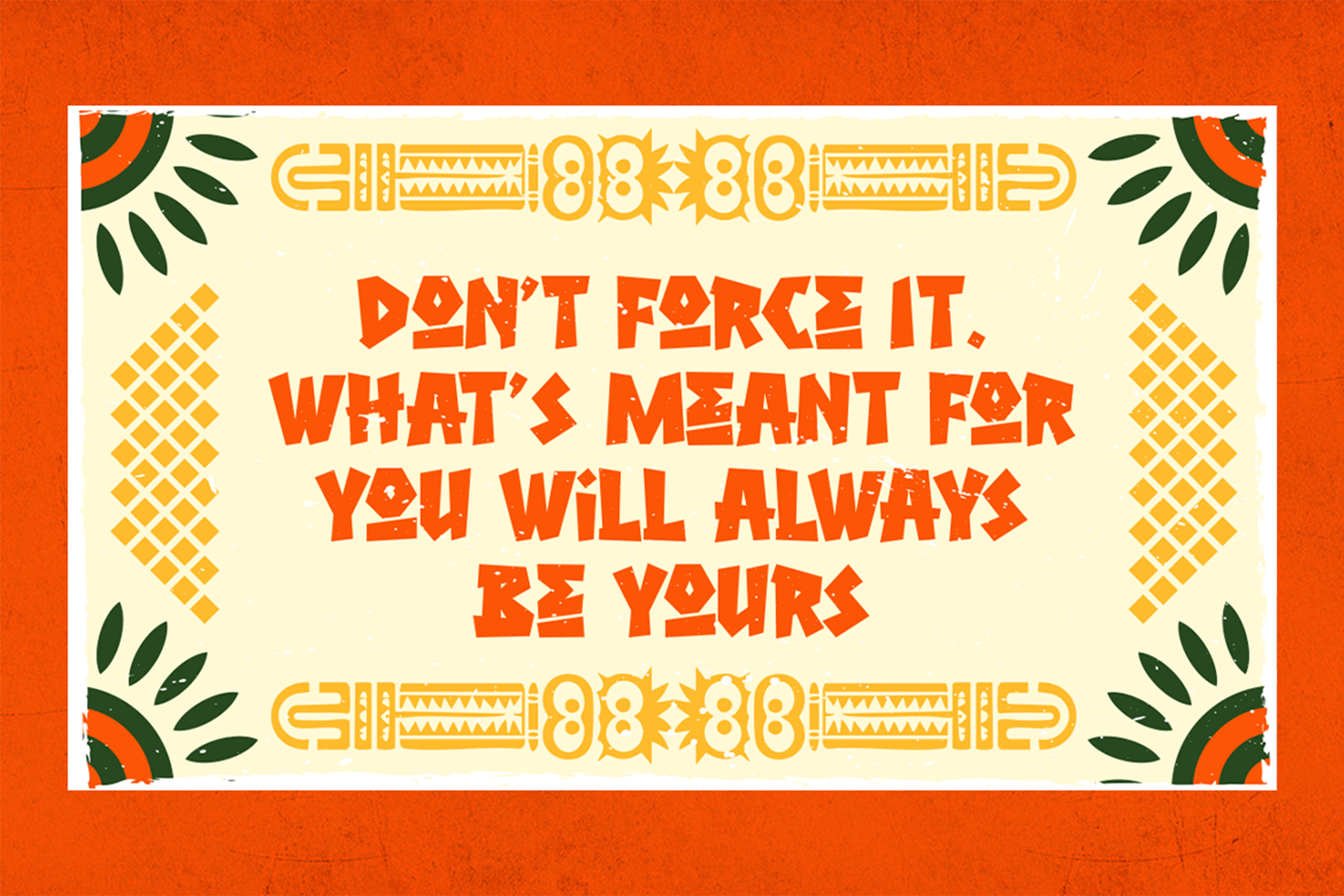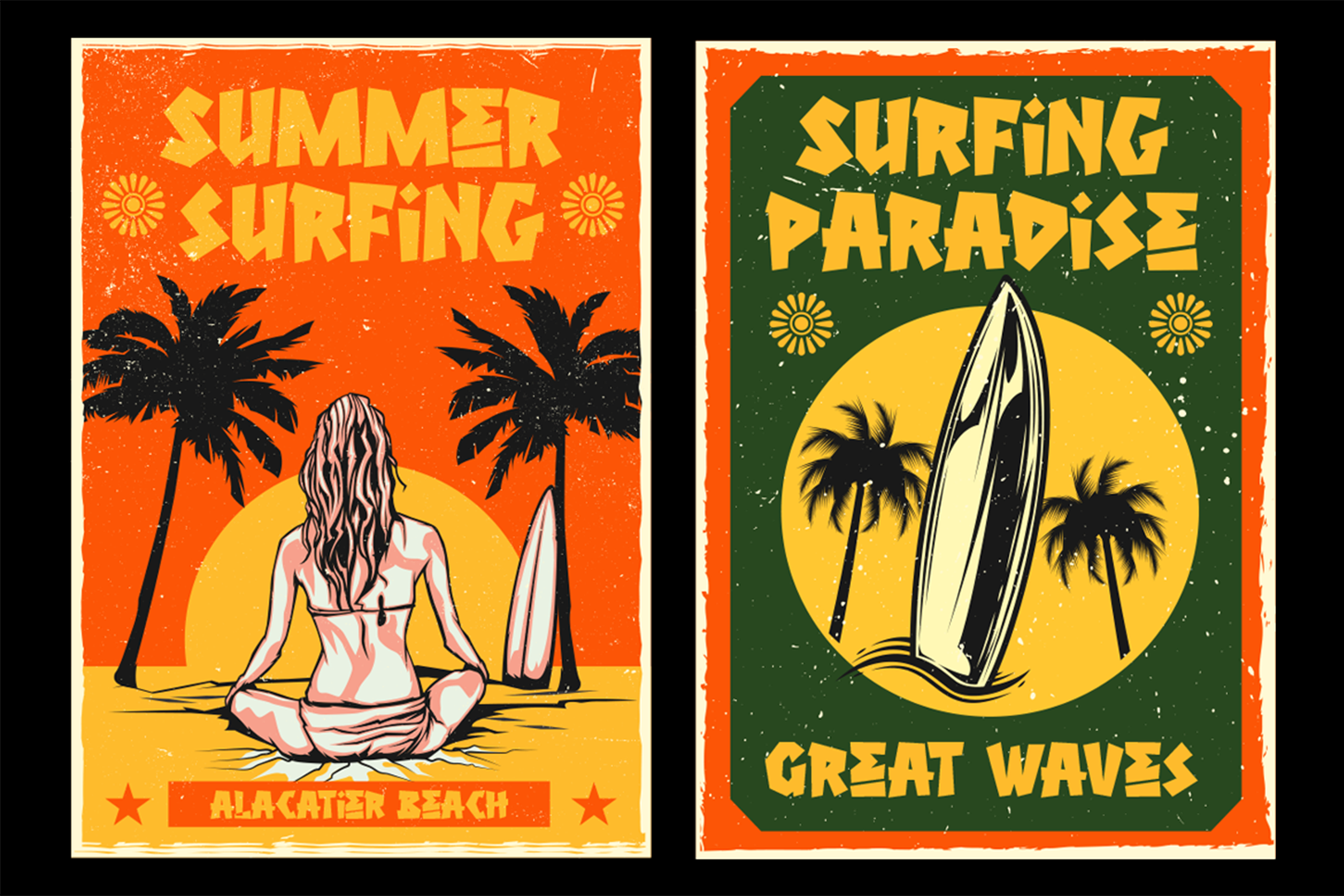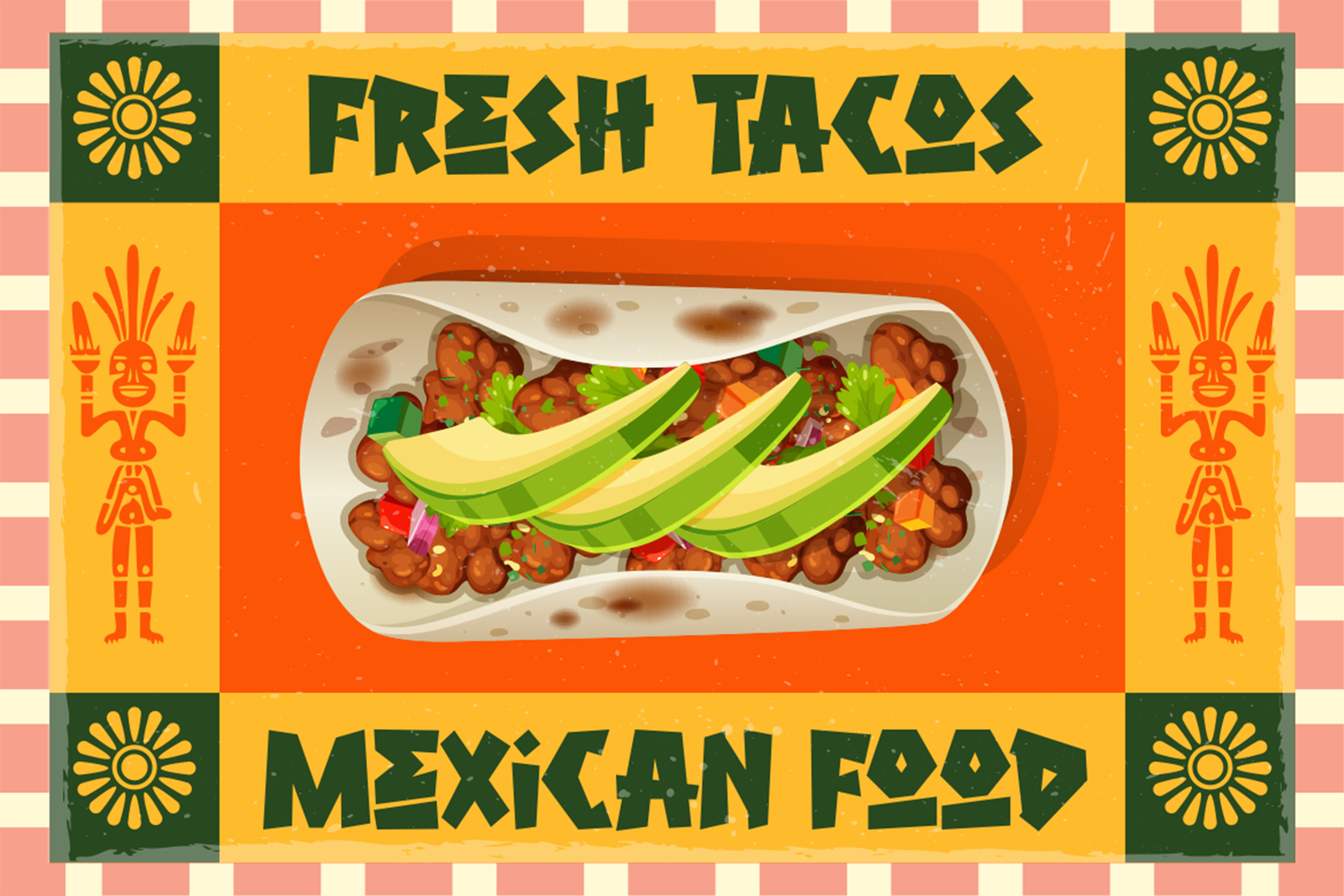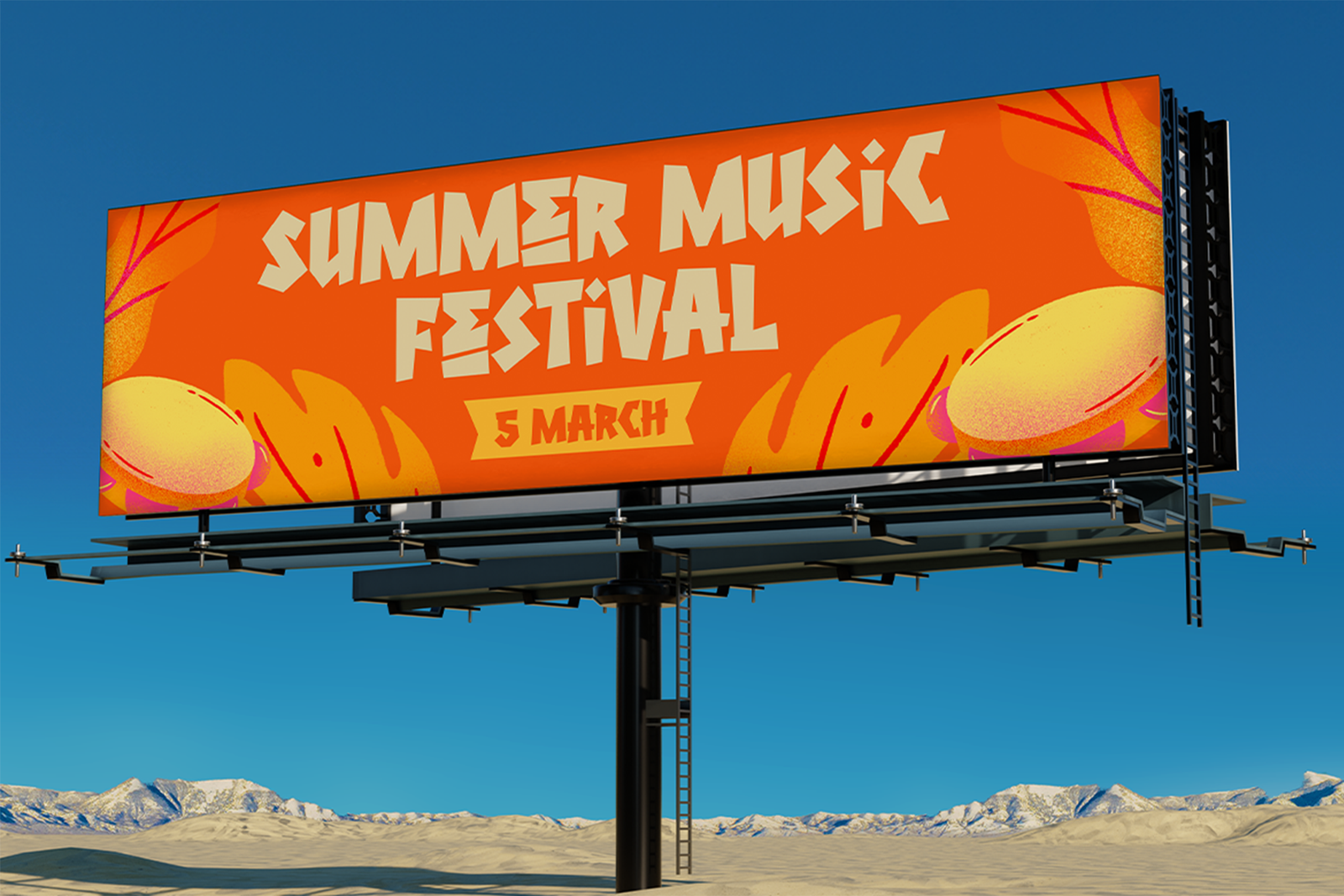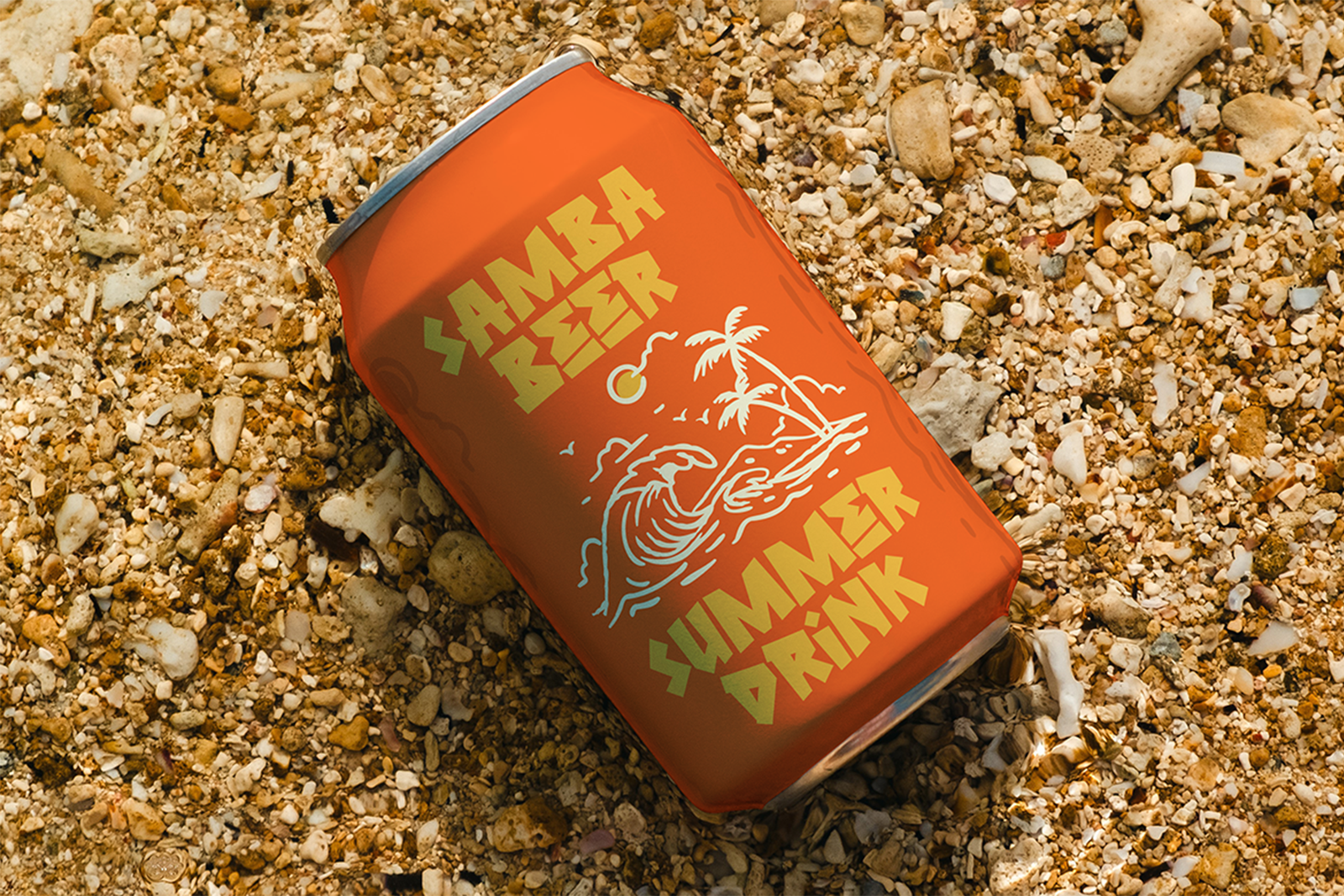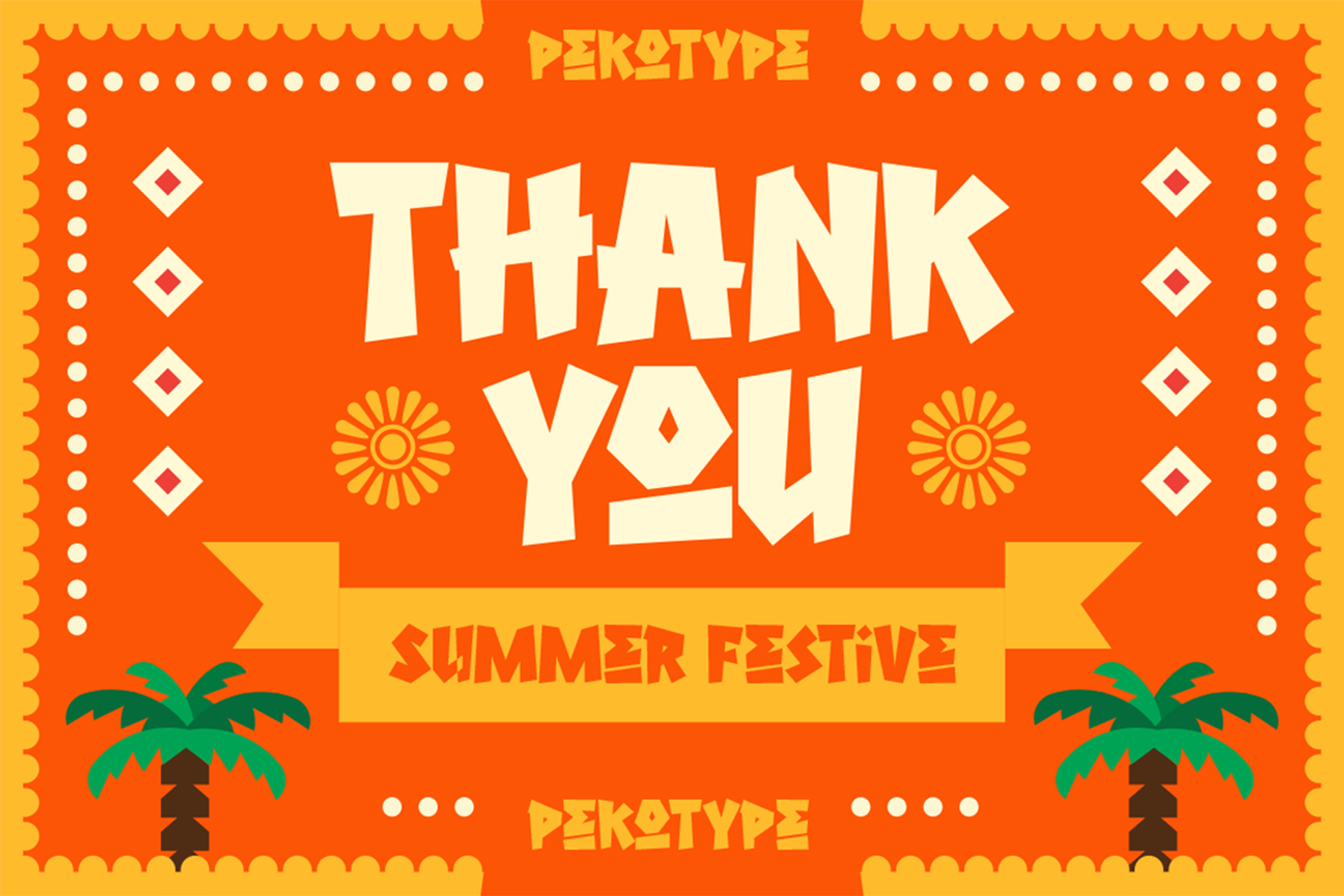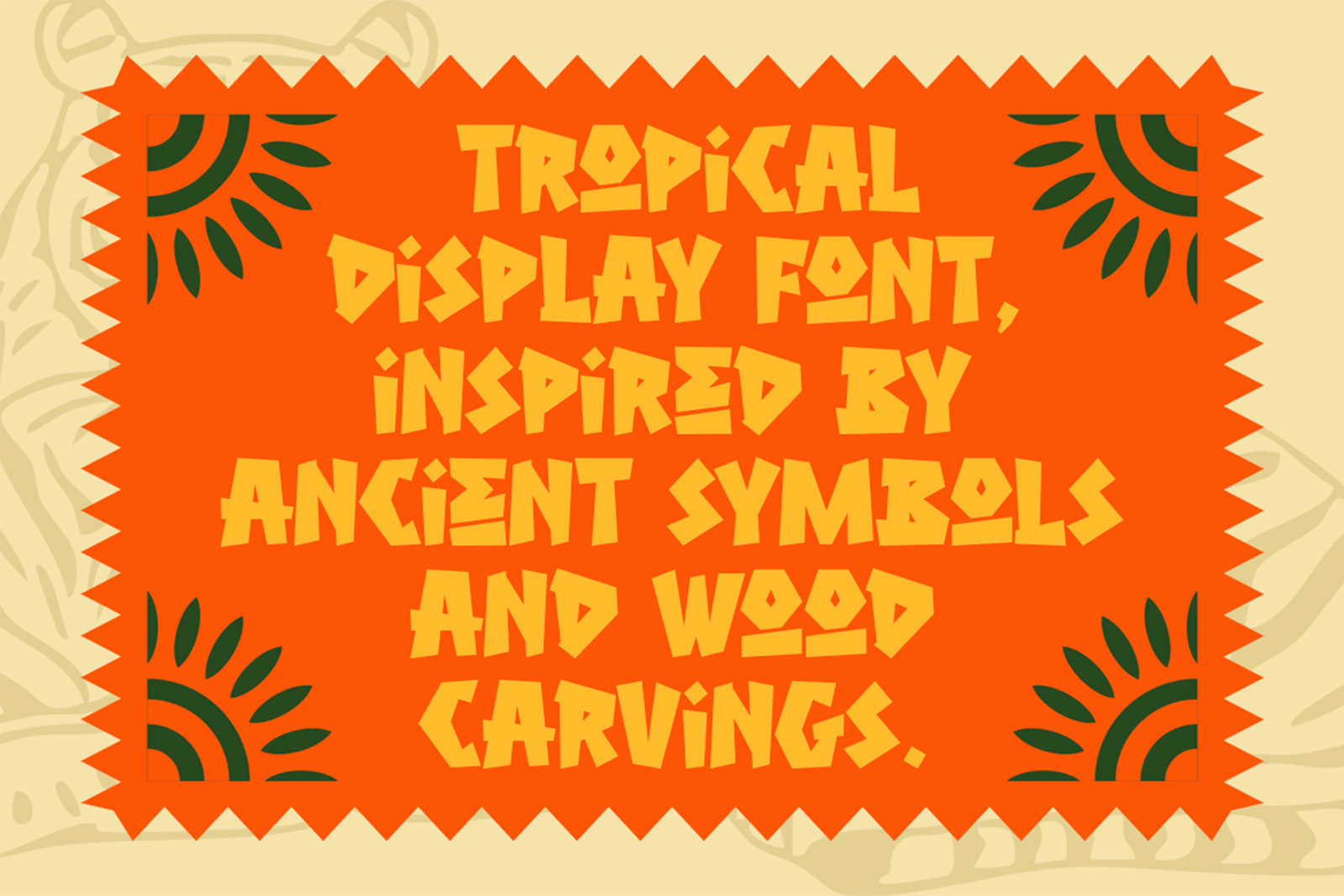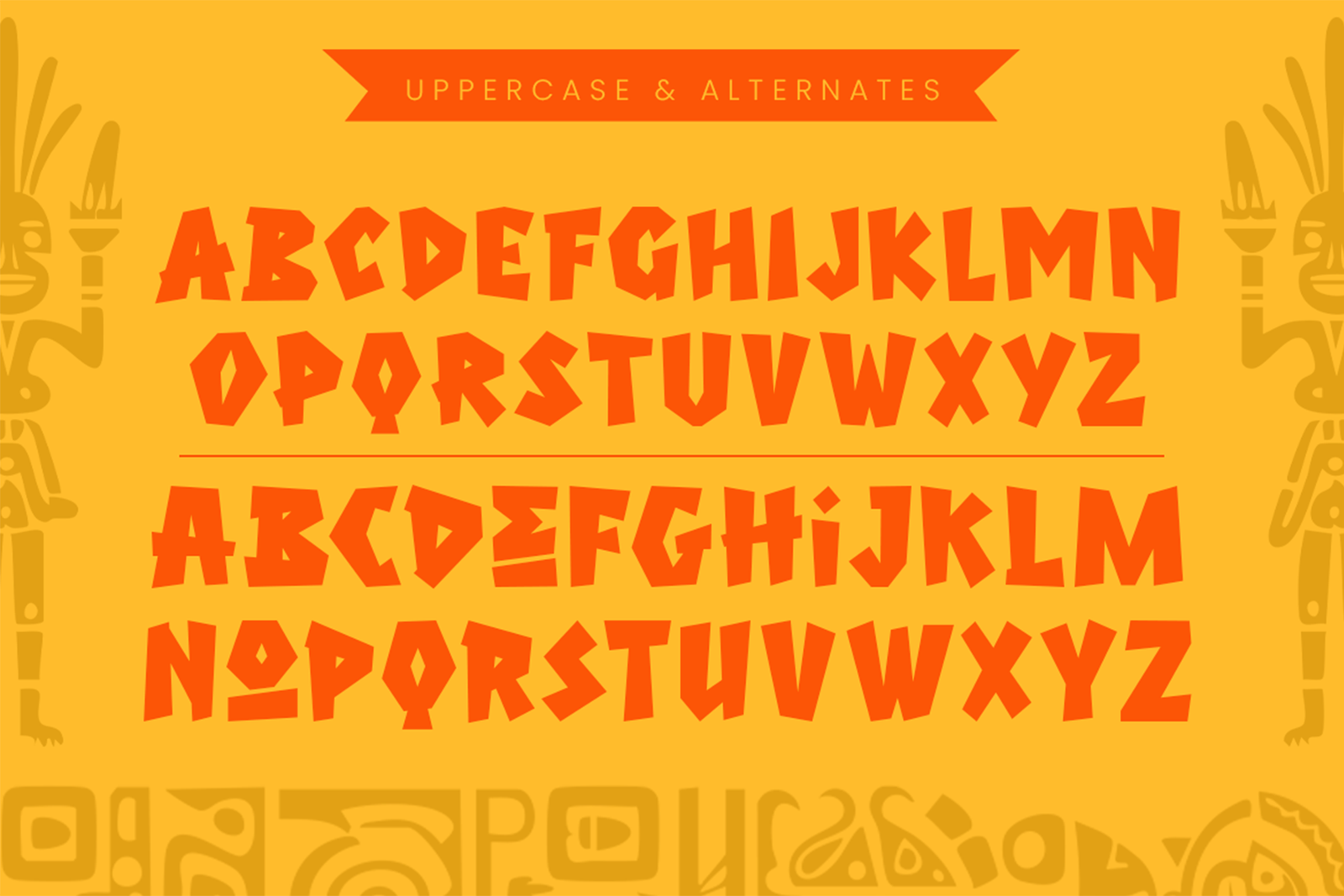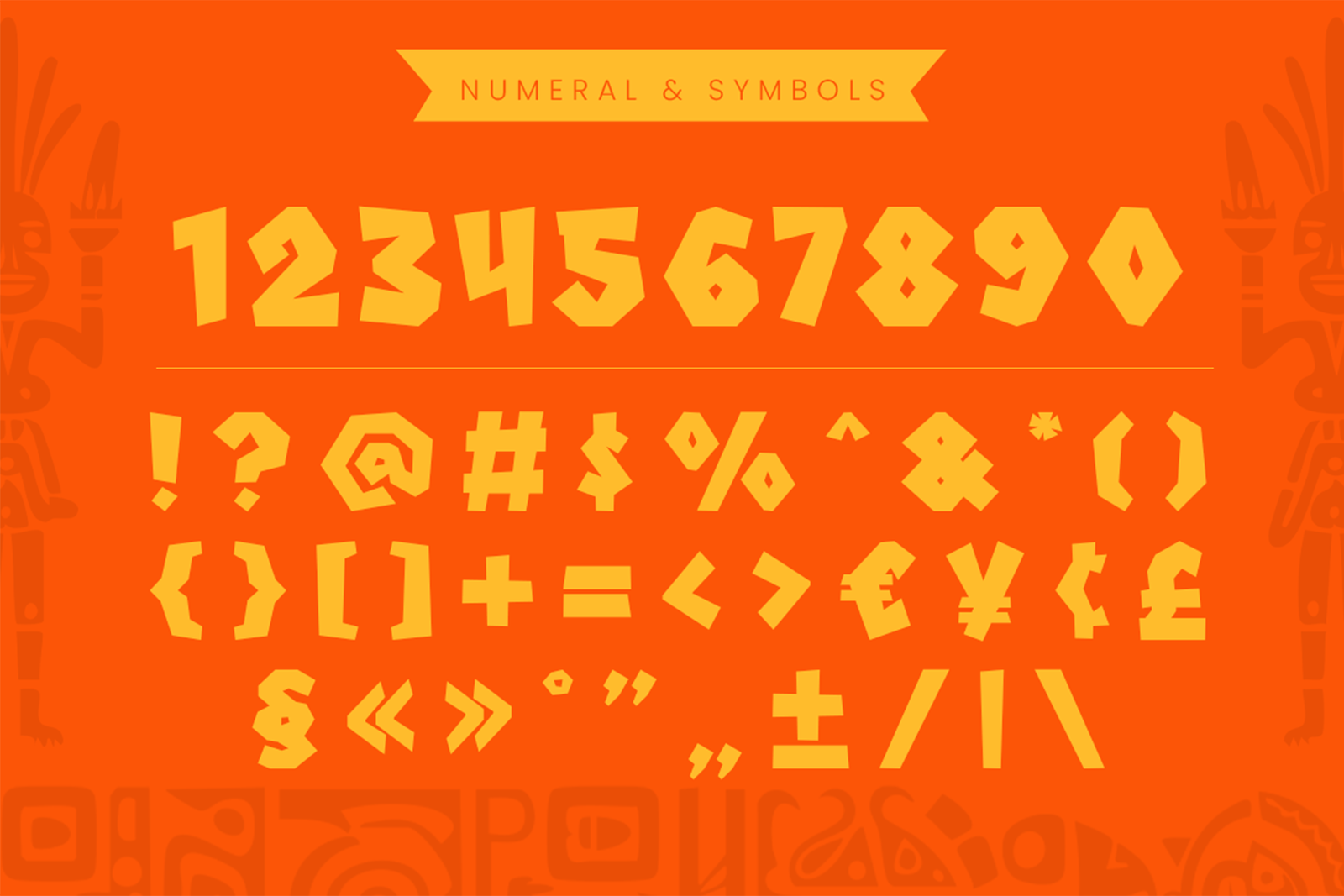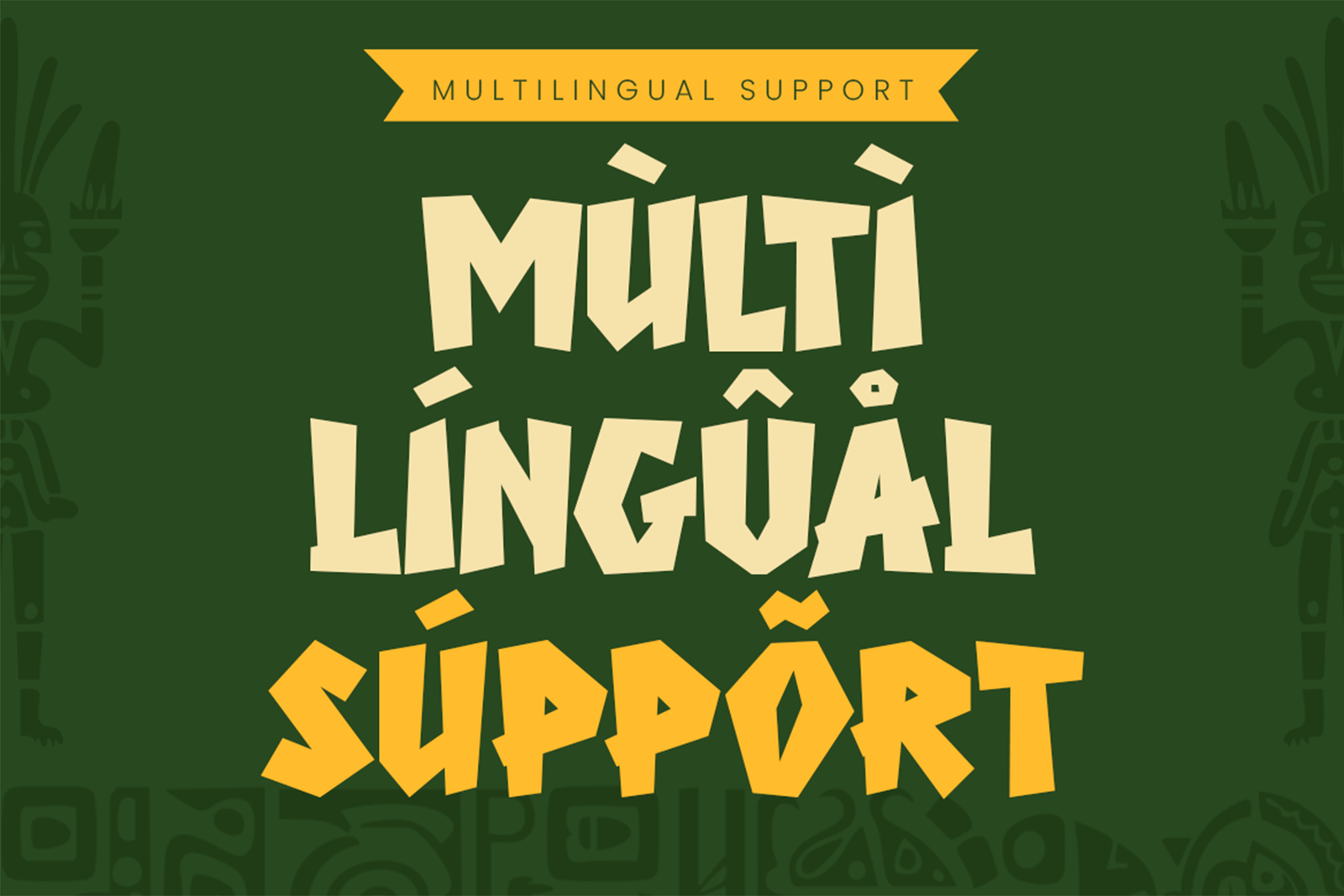
SUMMER FESTIVE Font is a tropical display typeface with a playful retro style, perfect for branding, posters, logos, packaging, and summer designs.
SUMMER FESTIVE Font – Tropical Retro Display
SUMMER FESTIVE Font is a tropical display font designed to bring a fun, warm, and nostalgic summer atmosphere to your creative projects. Inspired by vintage travel posters, tropical signs, and retro holiday aesthetics, this font features playful letterforms with unique decorative details that create a cheerful and eye-catching appearance. Its bold character makes it perfect for designs that need a relaxed, adventurous, and energetic style.
This versatile font works perfectly for summer branding, posters, logos, packaging, apparel designs, and social media graphics. It is also a great choice for beach events, travel promotions, food and beverage labels, festival artwork, merchandise, and lifestyle projects. Whether you are creating a tropical logo, vacation campaign, product packaging, or colorful promotional design, SUMMER FESTIVE helps your work stand out with a vibrant and memorable look. With uppercase letters, numbers, symbols, punctuation, and multilingual support, this font provides flexibility for various creative needs. Choose SUMMER FESTIVE to add a playful, retro, and tropical touch to your next design project.
Features:
• All Caps
• Number, Symbol, & Punctuation
• Multilingual